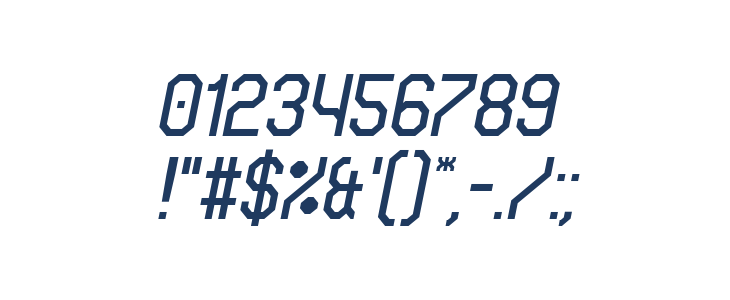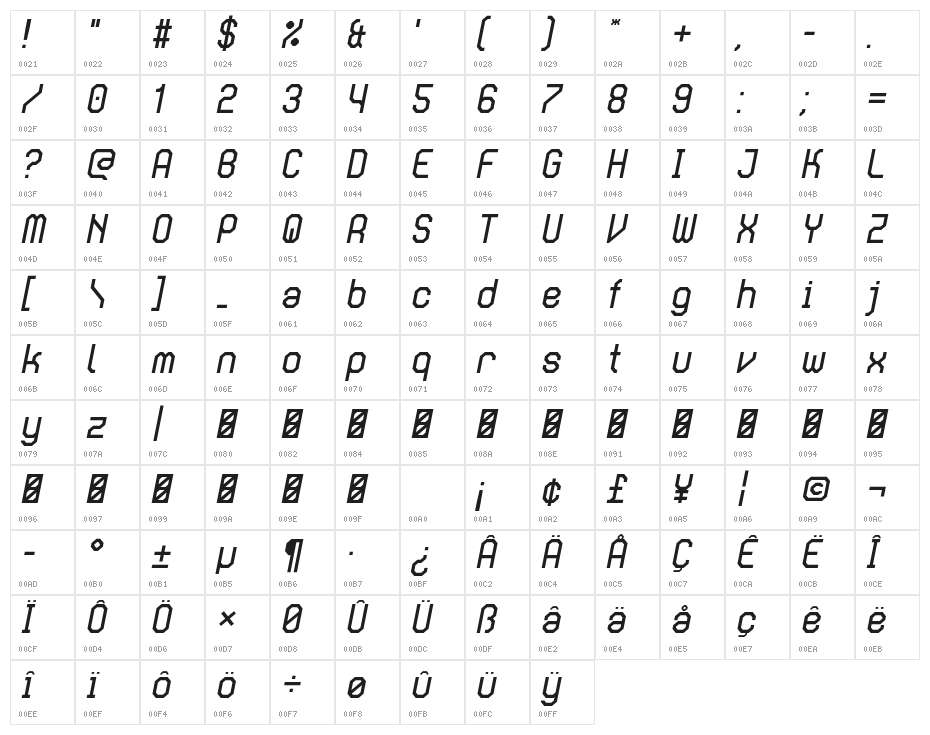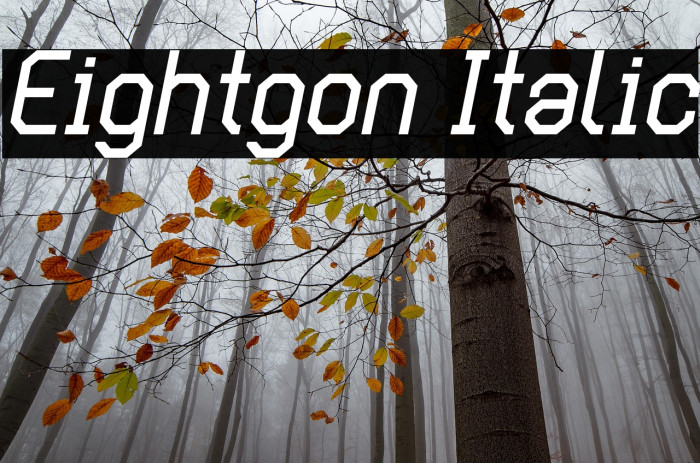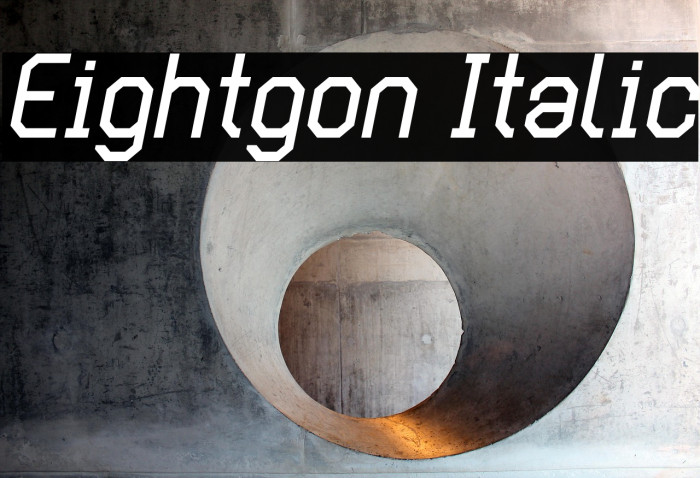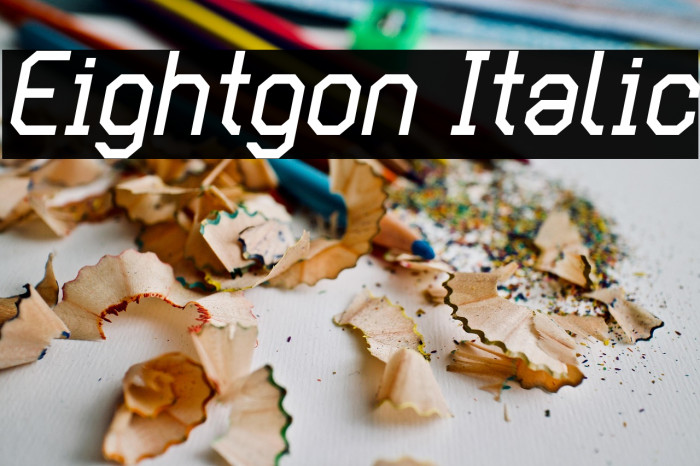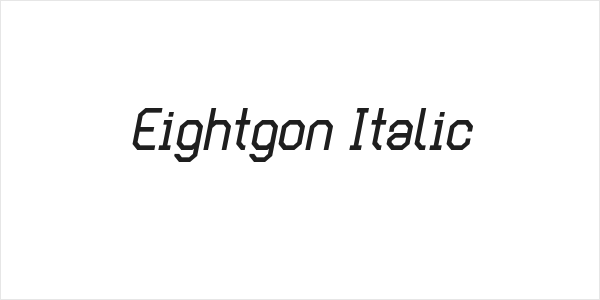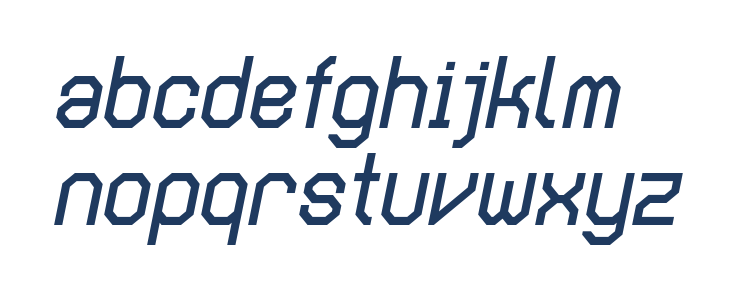
Eightgon Italic Font
Eightgon Italic Description
This font features a geometric, angular design with a distinct italic slant, giving it a dynamic and modern appearance. The characters are constructed with straight lines and sharp angles, creating an octagonal effect that is consistent across both uppercase and lowercase letters. The numerals and special characters follow the same design principles, ensuring uniformity throughout. The font's unique style makes it stand out, while its italic nature adds a sense of movement and speed. The overall look is futuristic and tech-inspired, making it suitable for contemporary design projects.
| Proposed Projects | Ideal for technology branding, futuristic posters, video game titles, and sci-fi themed designs. |